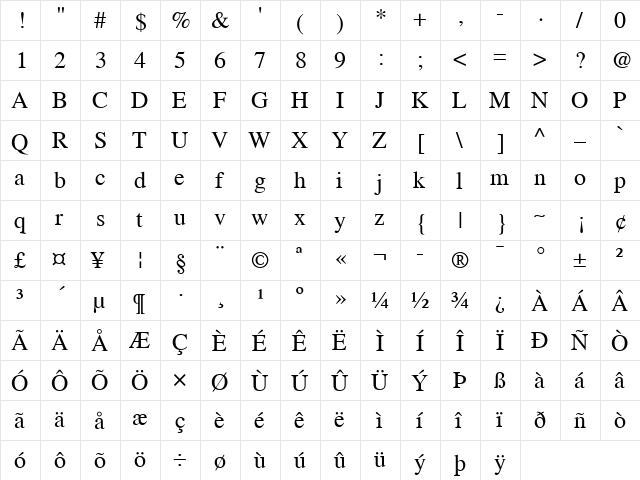
Indic Times Regular
Design Context for Indic Times Typeface
Indic Times offers clean, dependable letterforms without strong stylistic allegiance, making it a practical choice for designers who need flexibility.
Pro Tip: Pair Indic Times with a font of contrasting weight or personality to build a more expressive typographic hierarchy.